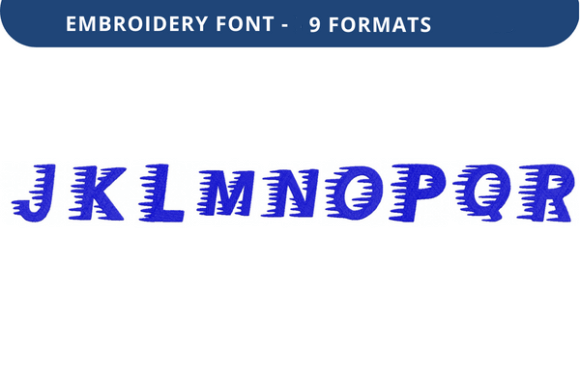
Winter Sprinter Font J to R: A Versatile Embroidery Font for Creative Projects
The Winter Sprinter Font J to R is a high-quality embroidery font designed to bring a unique and stylish touch to fabric-based projects. Whether you're crafting personalized gifts, customizing apparel, or creating decorative items, this font offers a blend of functionality and aesthetic appeal. Its clean lines and elegant design make it ideal for use in a variety of settings, from holiday-themed designs to everyday personalization.
What Makes Winter Sprinter Font J to R Stand Out?
One of the key features of Winter Sprinter Font J to R is its versatility. The font includes a wide range of characters, making it suitable for writing names, dates, quotes, and even short messages. This flexibility allows users to adapt the font to different types of projects without worrying about limited character sets.
In terms of design, Winter Sprinter Font J to R strikes a balance between modern and classic styles. The letterforms are well-proportioned, ensuring that text remains legible even when scaled down for smaller embroidery projects. This attention to detail makes it a reliable choice for both beginners and experienced embroiderers.
Comparing Winter Sprinter Font J to R with Similar Options
When evaluating embroidery fonts, it's important to consider factors such as character variety, design quality, and format support. Winter Sprinter Font J to R competes well with other popular embroidery fonts in the market, offering a similar level of detail and customization options.
For instance, many embroidery fonts focus on specific themes, such as holiday or seasonal designs. While these can be useful for targeted projects, they may lack the broad applicability of Winter Sprinter Font J to R. This font’s neutral and adaptable style makes it suitable for a wider range of uses, including weddings, birthdays, and corporate branding.
Additionally, some fonts may offer more intricate designs or special effects, which can be beneficial for certain applications. However, these often come at the cost of reduced readability or increased complexity in stitching. Winter Sprinter Font J to R maintains a balance between visual appeal and practicality, making it a strong contender for those who value simplicity and clarity.
Strengths and Limitations of Winter Sprinter Font J to R
Winter Sprinter Font J to R excels in several areas, particularly in its ease of use and adaptability. Its straightforward design allows for quick setup and minimal adjustments, which is especially valuable for users who are new to embroidery or looking to streamline their workflow.
However, like any font, Winter Sprinter Font J to R has its limitations. For example, while it offers a good selection of characters, it may not include specialized symbols or accents that are required for certain languages or projects. Users working on multilingual designs may need to explore additional resources or fonts to meet their needs.
Furthermore, the font’s design, while elegant, may not be suitable for highly decorative or artistic projects that require more elaborate styling. In such cases, users might find that more stylized fonts provide greater creative freedom and visual impact.
When to Choose Winter Sprinter Font J to R
Winter Sprinter Font J to R is an excellent choice for individuals who prioritize simplicity, readability, and versatility. It is particularly well-suited for projects that require clear, concise text, such as name tags, personalized gifts, or event signage.
For example, if you're creating custom t-shirts for a family reunion, using Winter Sprinter Font J to R can ensure that the names are easy to read and visually appealing. Similarly, it can be used to add a thoughtful touch to holiday decorations or home textiles.